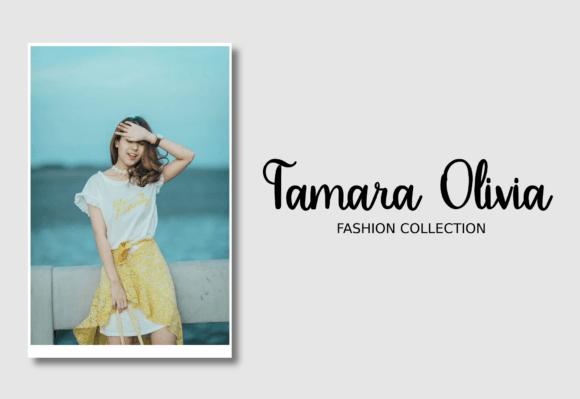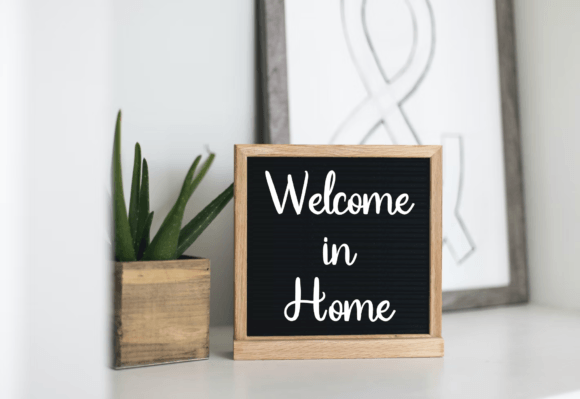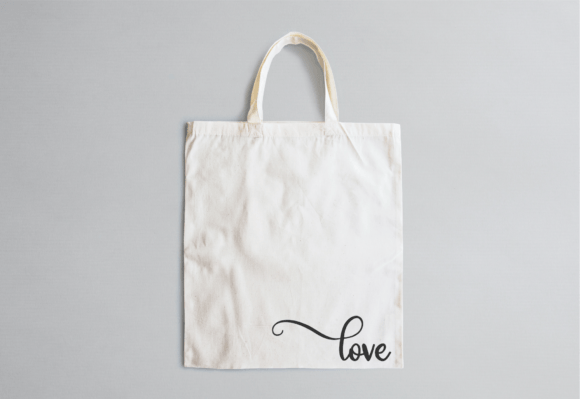
Discover the Charm of Amelia Font: A Simple, Quirky, and Adaptable Handwritten Font
Are you a designer or crafter looking for a unique and elegant font to add a personal touch to your creative projects? Look no further than Amelia Font, a simple, quirky, and adaptable handwritten font that is sure to capture your audience’s attention. In this article, we’ll explore the features and benefits of Amelia Font, and how you can use it to elevate your designs and crafts.
What is Amelia Font?
Amelia Font is a beautiful, handcrafted font that exudes a sense of elegance and playfulness. Its simple, yet quirky design makes it perfect for a wide range of creative projects, from wedding invitations and business cards to greetings cards, social media posts, and wall art. With its unique character and adaptability, Amelia Font is an excellent choice for designers and crafters who want to add a personal touch to their work.
Key Features of Amelia Font
- Simple and Quirky Design: Amelia Font features a simple, yet quirky design that is sure to stand out from the crowd. Its unique character makes it perfect for creative projects that require a personal touch.
- Adaptable: Amelia Font is highly adaptable, making it suitable for a wide range of creative projects, from formal wedding invitations to casual social media posts.
- Elegant: Despite its quirky design, Amelia Font exudes elegance and sophistication, making it perfect for projects that require a touch of refinement.
- Handwritten: Amelia Font is a handwritten font, which gives it a personal and authentic feel that is sure to resonate with your audience.
Uses of Amelia Font
Amelia Font is a versatile font that can be used for a wide range of creative projects, including:
- Wedding Invitations: Add a touch of elegance and whimsy to your wedding invitations with Amelia Font.
- Business Cards: Stand out from the crowd with Amelia Font, perfect for business cards that require a personal touch.
- Greetings Cards: Use Amelia Font to create beautiful and unique greetings cards for special occasions.
- Social Media Posts: Add a touch of personality to your social media posts with Amelia Font.
- Wall Art: Create stunning wall art with Amelia Font, perfect for home decor or office spaces.
Benefits of Using Amelia Font
Using Amelia Font in your creative projects offers several benefits, including:
- Unique and Eye-Catching: Amelia Font is a unique and eye-catching font that is sure to capture your audience’s attention.
- Personal Touch: Amelia Font adds a personal touch to your creative projects, making them more relatable and authentic.
- Elegance and Sophistication: Despite its quirky design, Amelia Font exudes elegance and sophistication, making it perfect for projects that require a touch of refinement.
- Versatility: Amelia Font is highly versatile, making it suitable for a wide range of creative projects.
Tips for Using Amelia Font
Here are some tips for using Amelia Font in your creative projects:
- Experiment with Colors: Amelia Font looks great in a variety of colors, so don’t be afraid to experiment and find the perfect color scheme for your project.
- Pair with Other Fonts: Amelia Font pairs well with other fonts, so try combining it with other fonts to create a unique and eye-catching design.
- Use for Headings and Titles: Amelia Font is perfect for headings and titles, so use it to add a touch of elegance and whimsy to your designs.
In conclusion, Amelia Font is a simple, quirky, and adaptable handwritten font that is perfect for designers and crafters who want to add a personal touch to their creative projects. With its unique character, elegance, and versatility, Amelia Font is sure to capture your audience’s attention and elevate your designs and crafts.